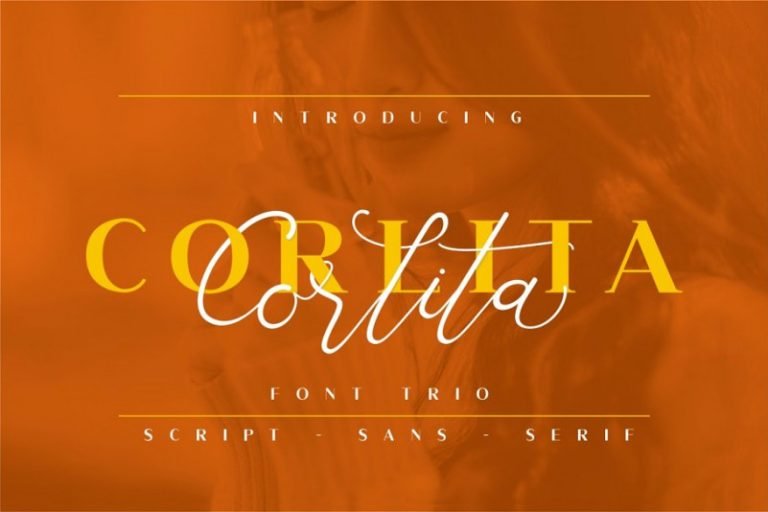
Corlita Font Trio
Hello friend. Proudly presents latest product Corlita Font Trio. CORLITA is a beautiful and modern font trio (sans ,serif and script ). a perfect pair, can created to mix together. CORLITA perfect for branding, wedding invite and card, elegant logo, poster, packaging, stationery, website, and many more.